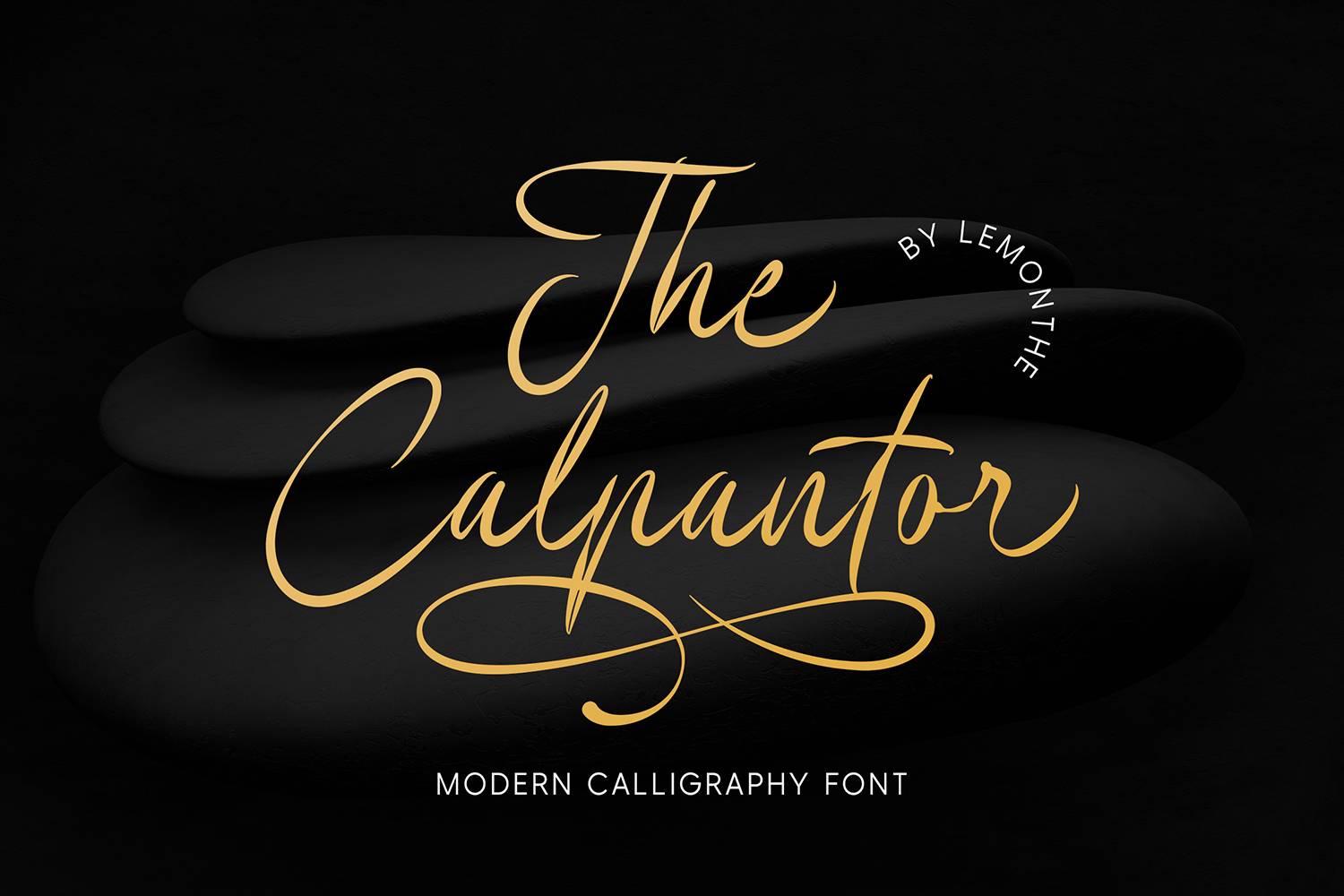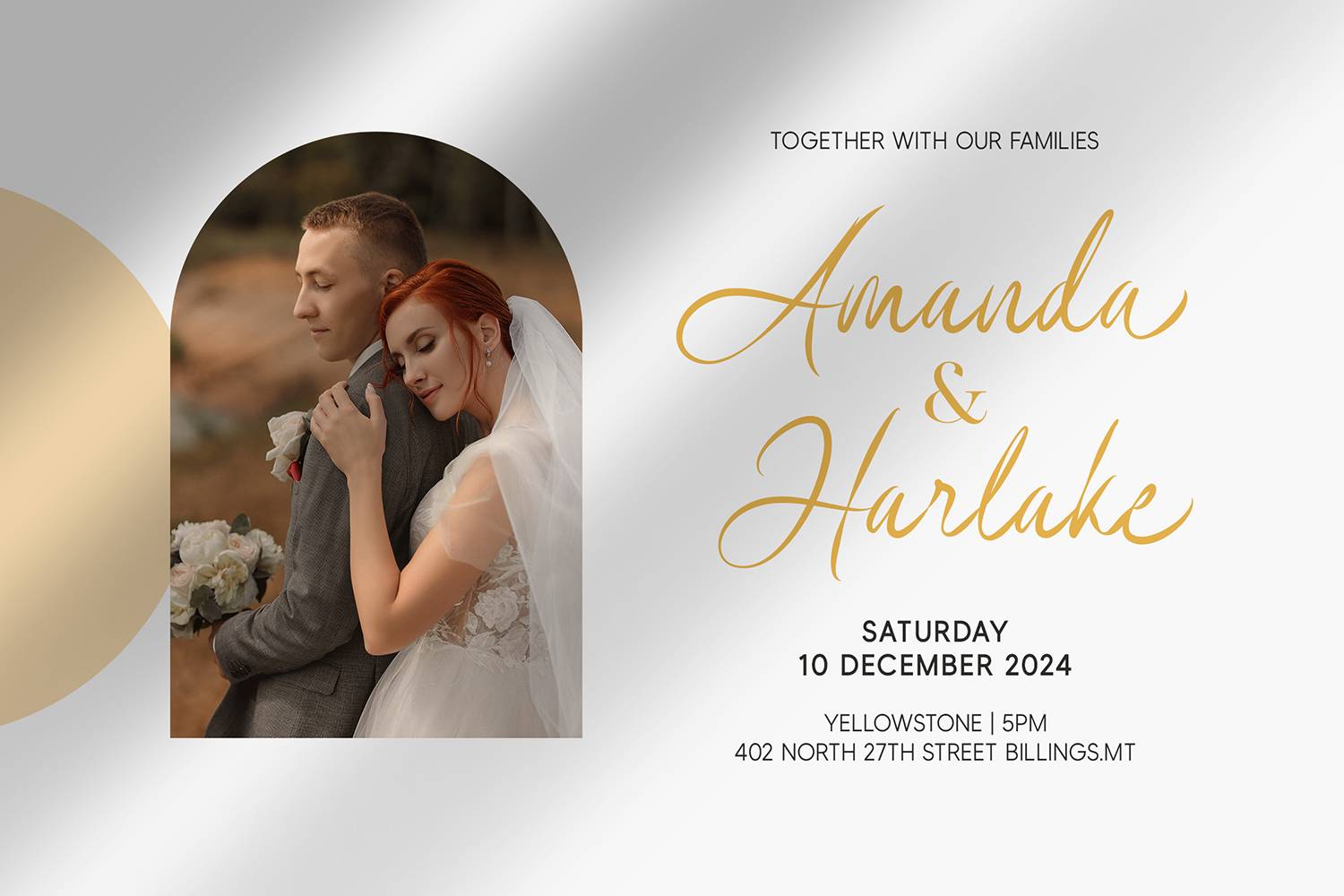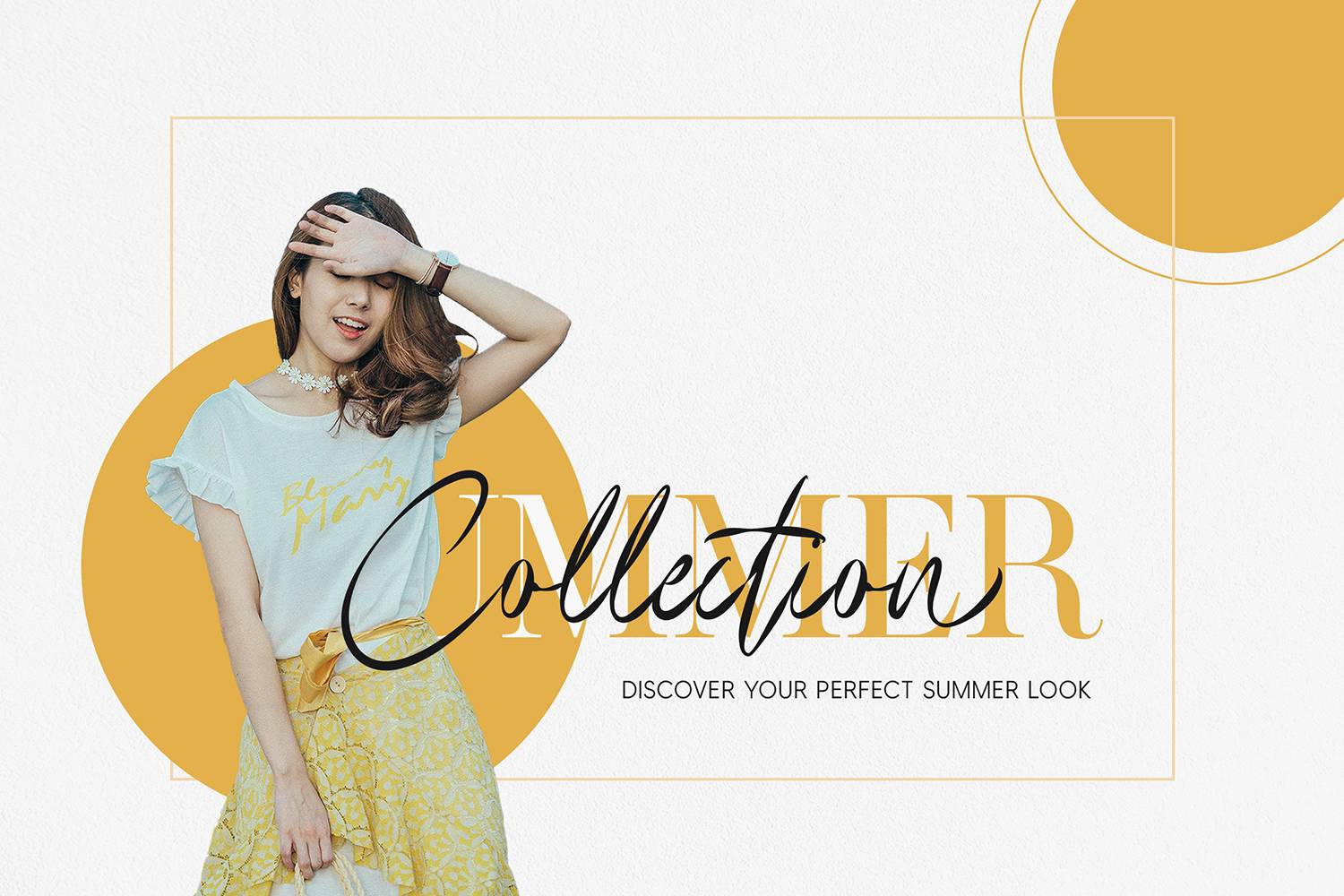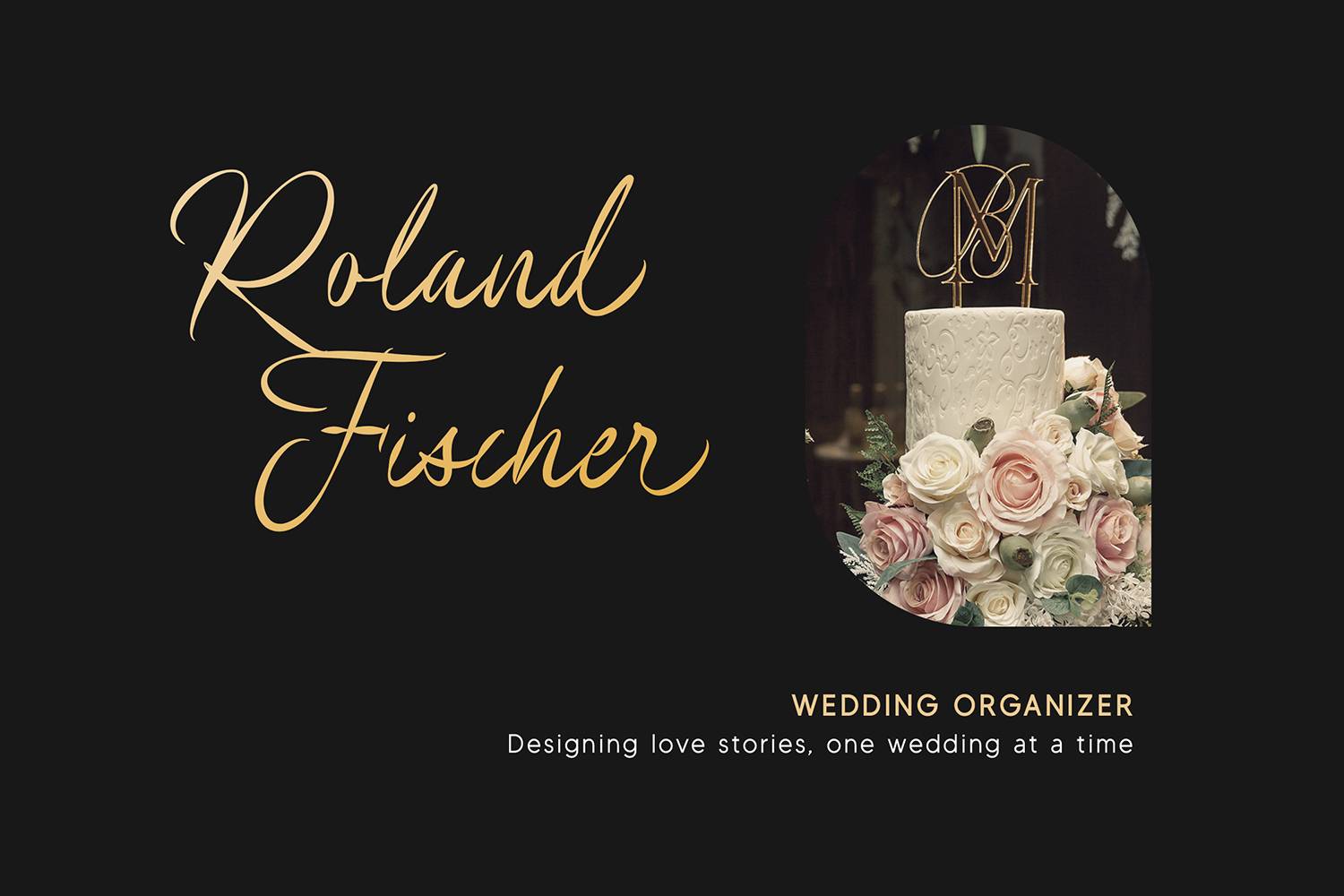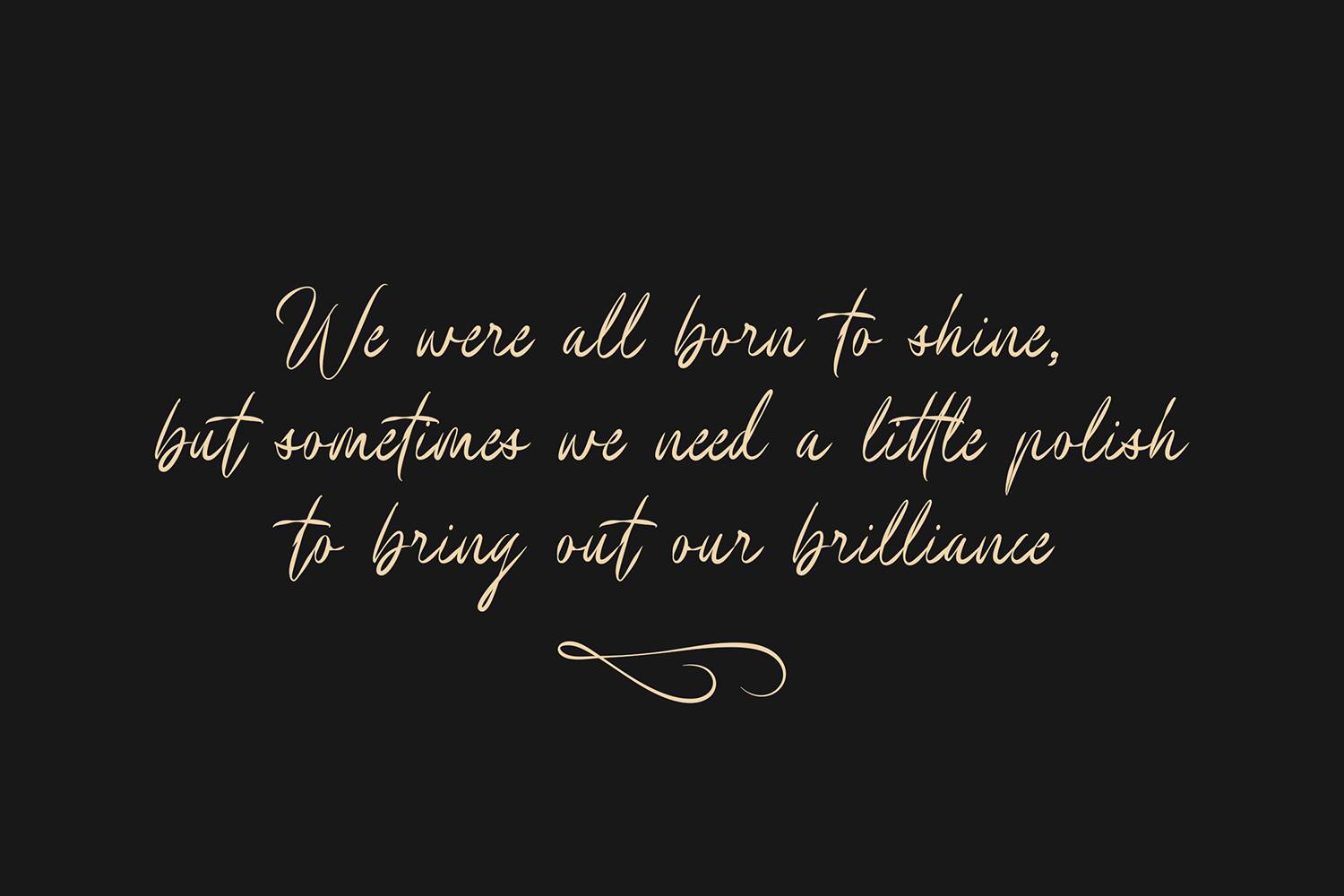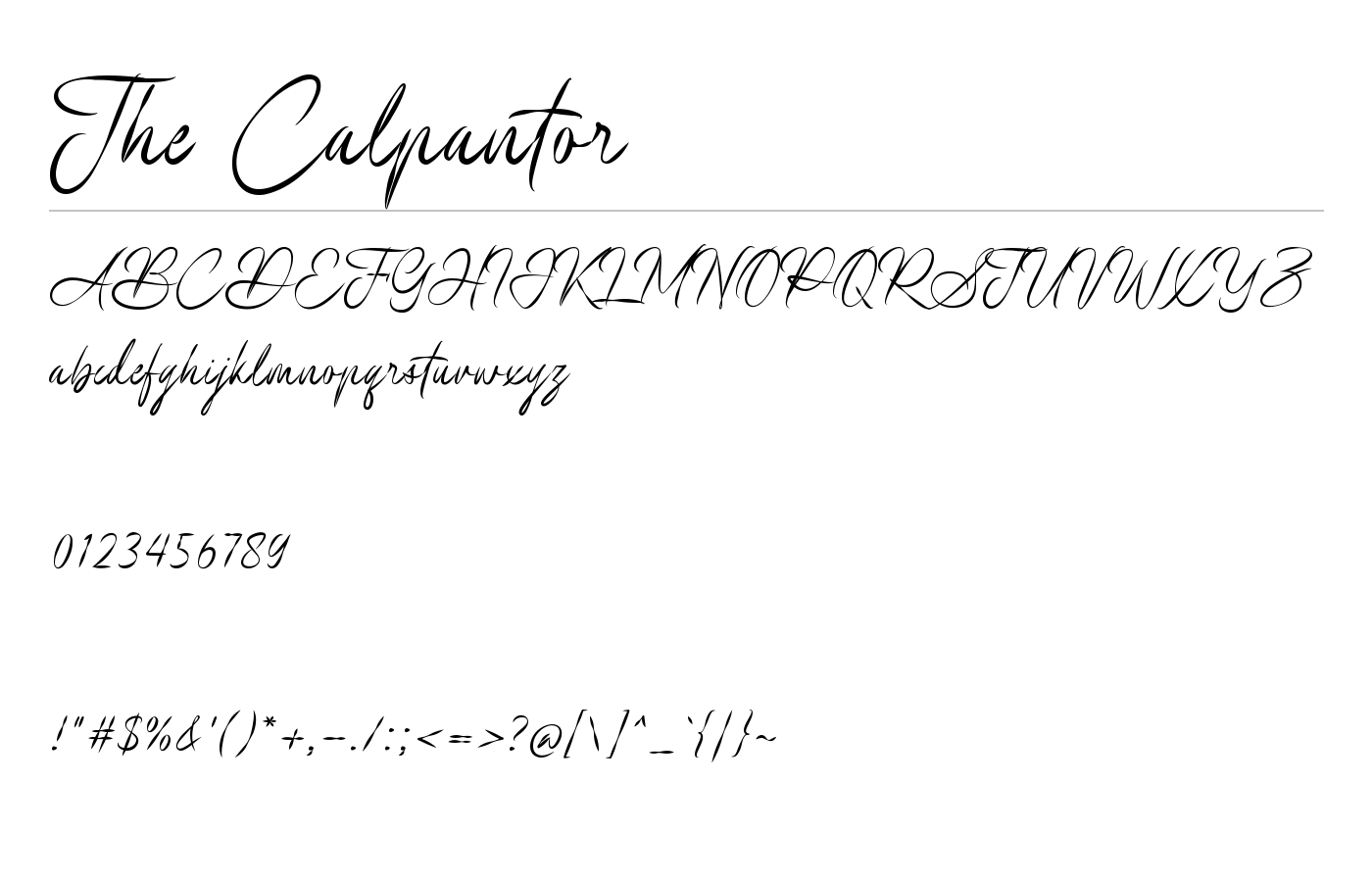
The Calpantor Font is an elegant, handwritten script with a delicate and flowing style that features graceful, slender strokes and a refined, airy feel. Its tall x-height and slightly varied stroke thickness give it a modern yet sophisticated personality, making it perfect for wedding invitations, luxury branding, and stylish editorial headlines where a personal, artistic touch is desired. This font’s distinctive letterforms and smooth, connected characters evoke a sense of elegance and charm that works beautifully in creative and upscale design projects.
The Calpantor Font
About The Calpantor Font
| Font family | The Calpantor Font |
| Release date | 2023-03-19 |
| Designer | Dwi Ahidian |